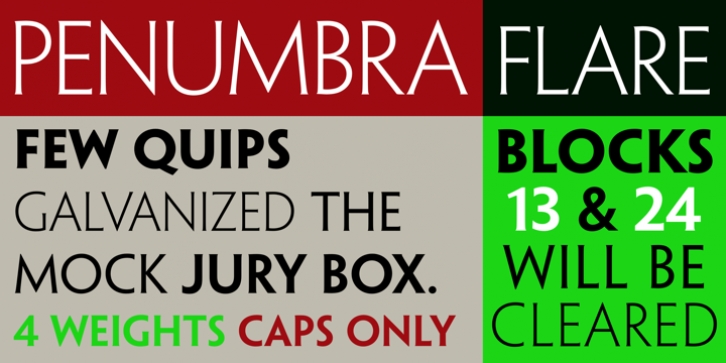
Penumbra, designed by Lance Hidy in 1994, is an all-capital design. Hidy derived Penumbra from his poster lettering-monoline forms with a blending of contemporary and traditional qualities, which has evolved since the 1970s.
Penumbra’s style range from a Futura-like sans serif to a Sistina-like serif can be successfully used in myriad display situations.